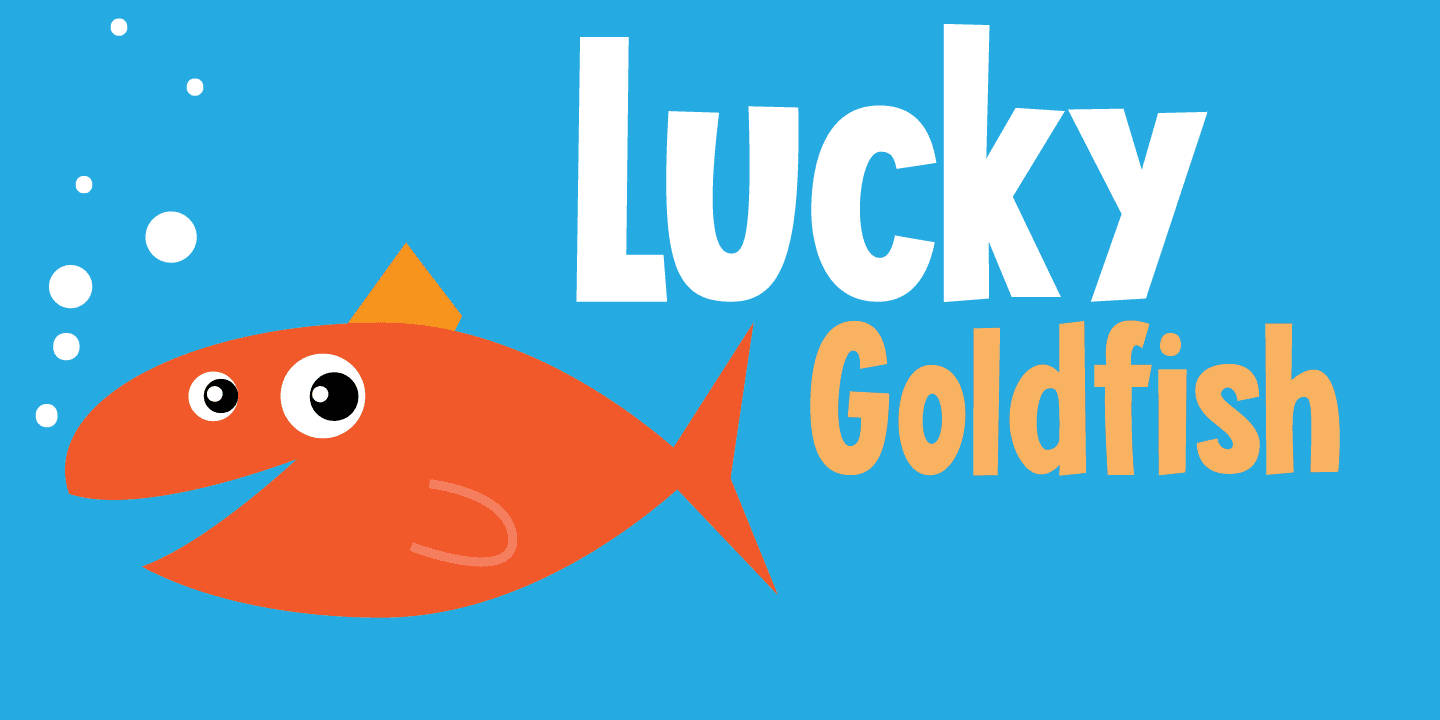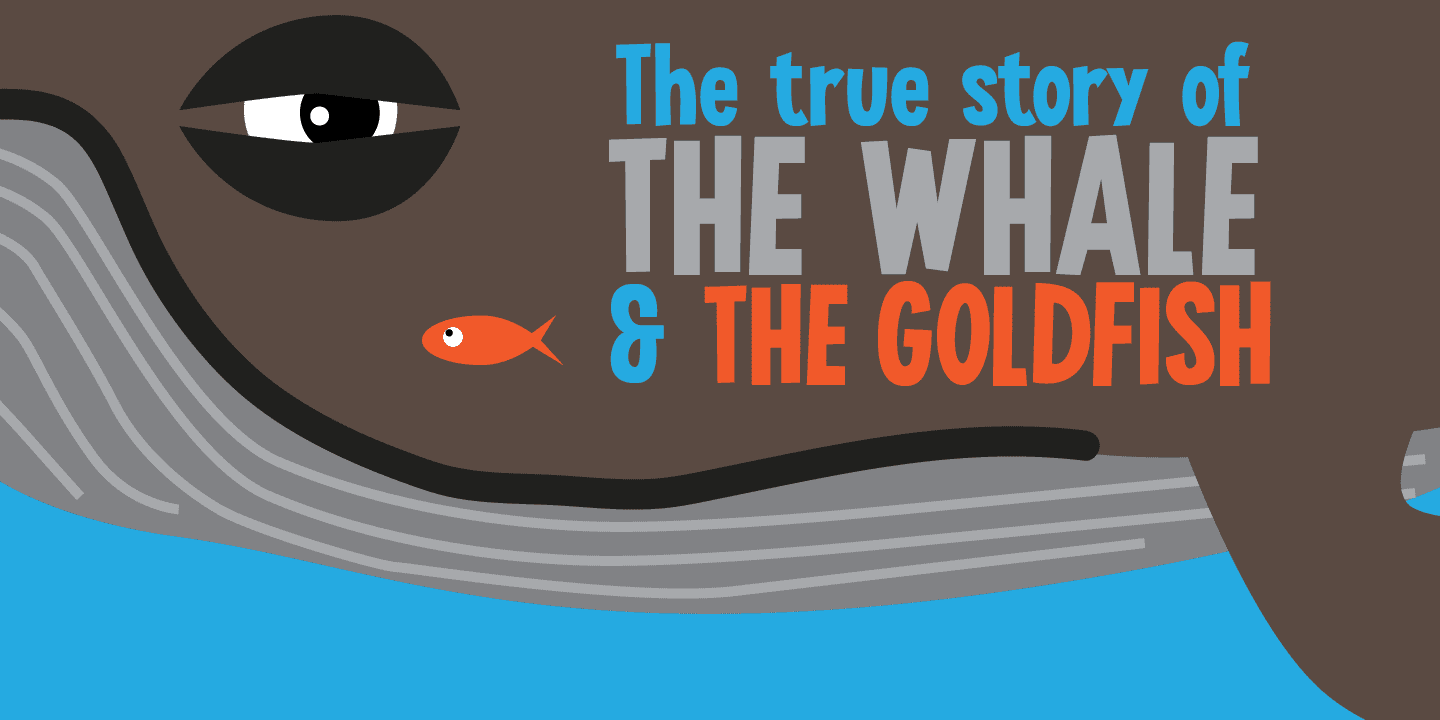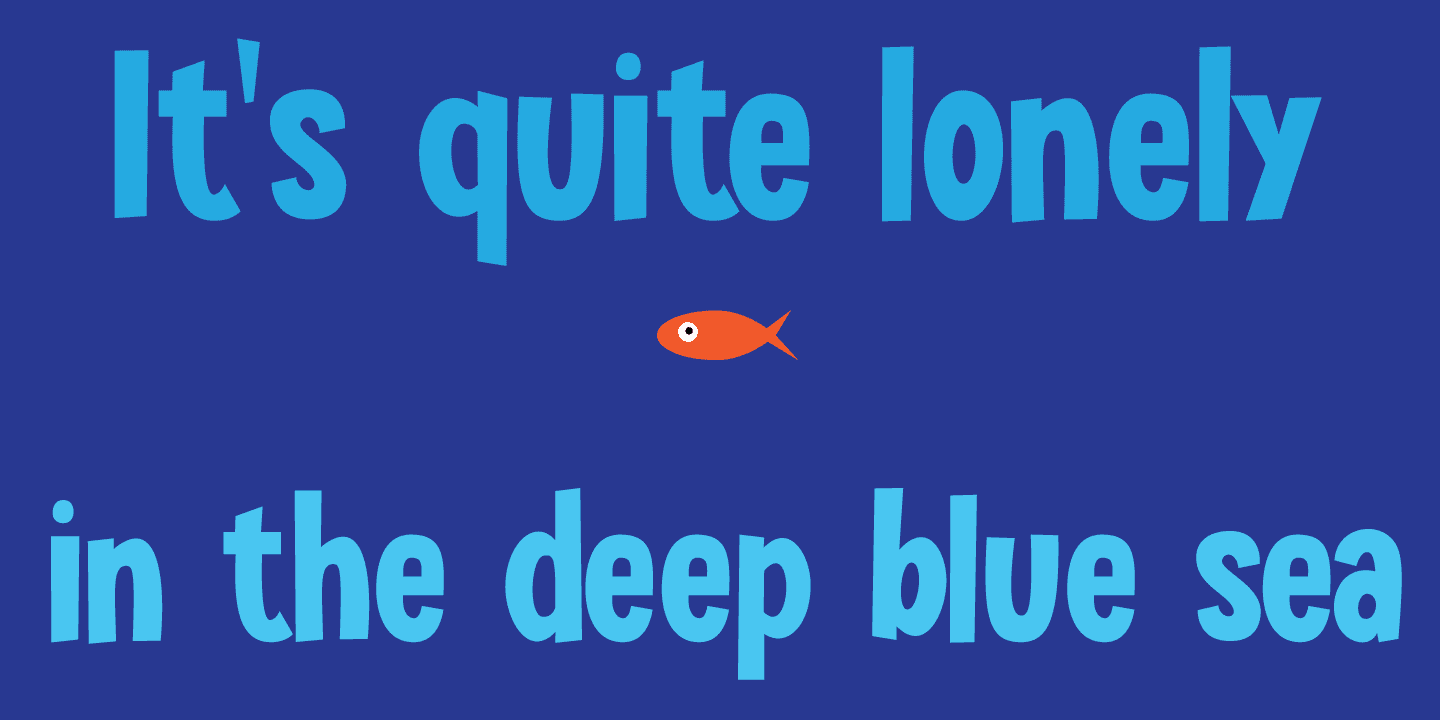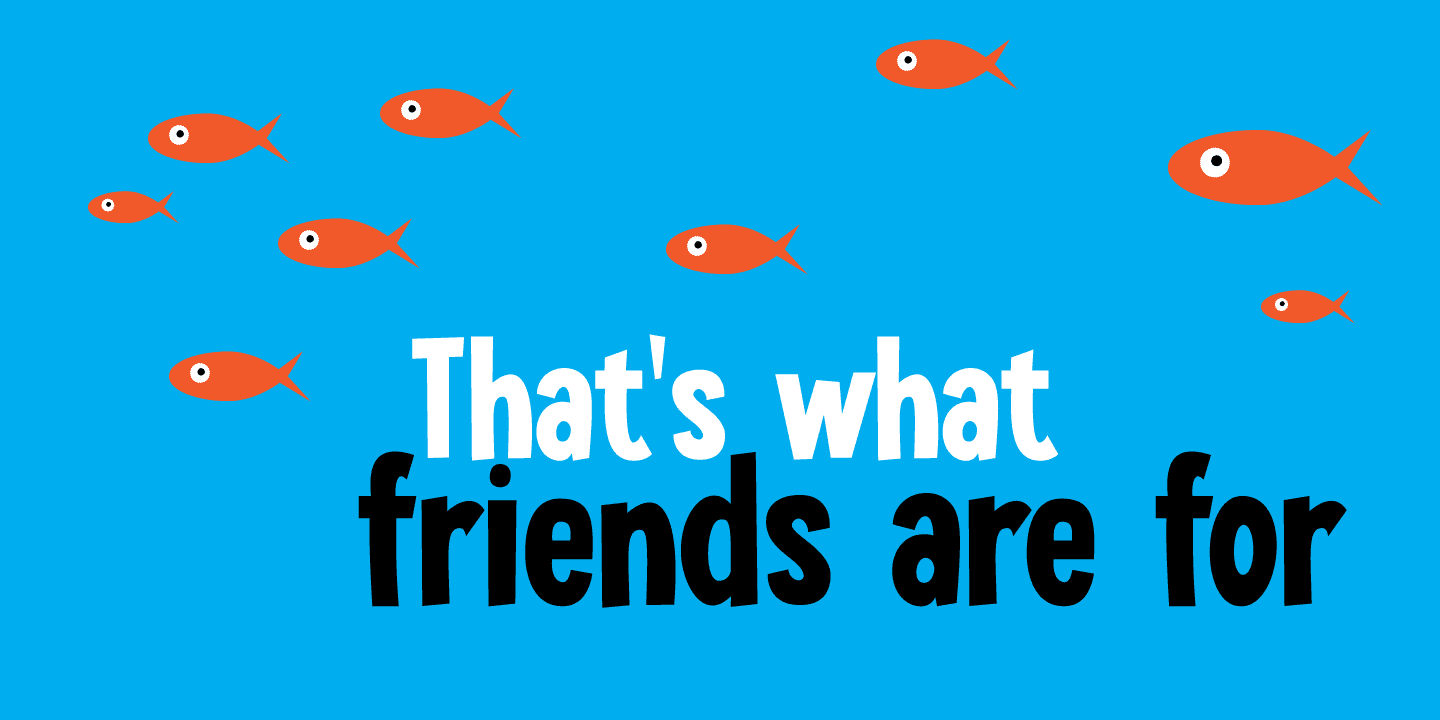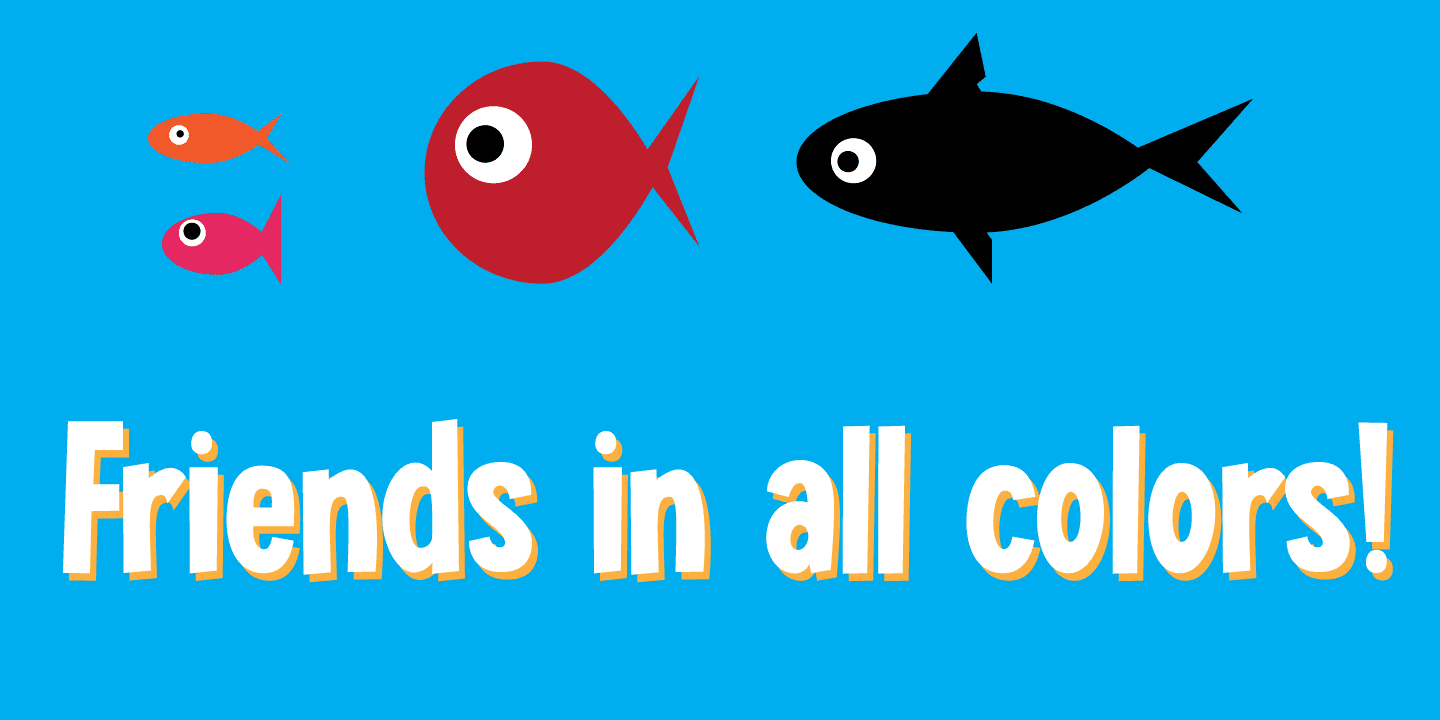
I am not really sure if goldfish in general are lucky. They tend to swim in circles in a bowl, but maybe, years from now, scientists discover that these goldfish count themselves lucky to be in a bowl, rather than in a stream in Asia. Personally, I think they’d be better off in a stream.
Lucky Goldfish font is a cute and happy font, ideally suited for book covers, posters and toy packaging. Comes with a school of diacritics too.